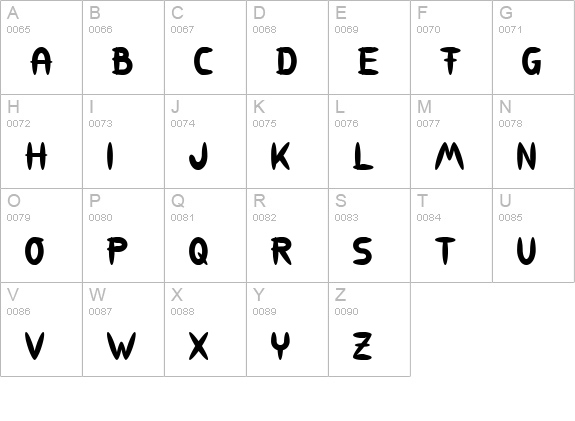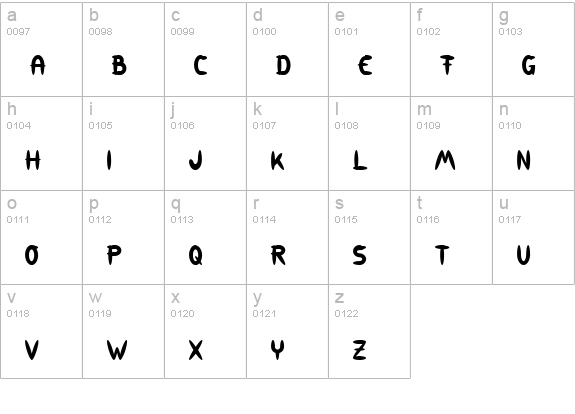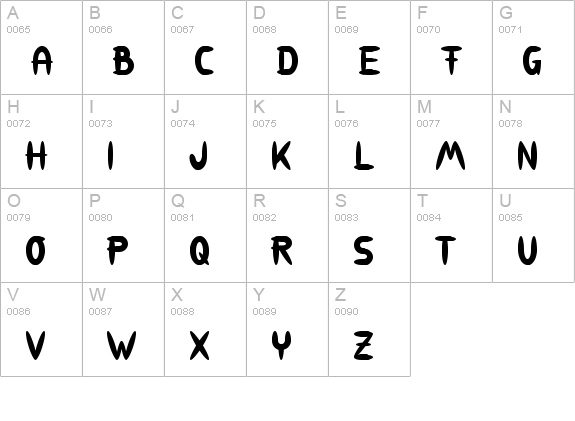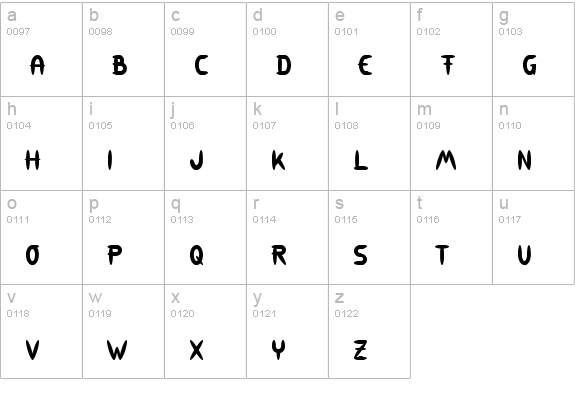
Introducing 309 font, a stylish and versatile typeface that is sure to make your designs stand out. With its sleek lines and modern aesthetic, this font is perfect for a wide range of projects, from branding to social media graphics. Whether you're working on a logo, poster, or website, 309 font will bring a touch of sophistication to your work. The best part? 309 font is completely free to download at FontsMarket.com! That's right, you can add this stunning font to your collection without spending a dime. Don't miss out on the opportunity to enhance your designs with this beautiful and eye-catching typeface. Download 309 font today and take your projects to the next level.